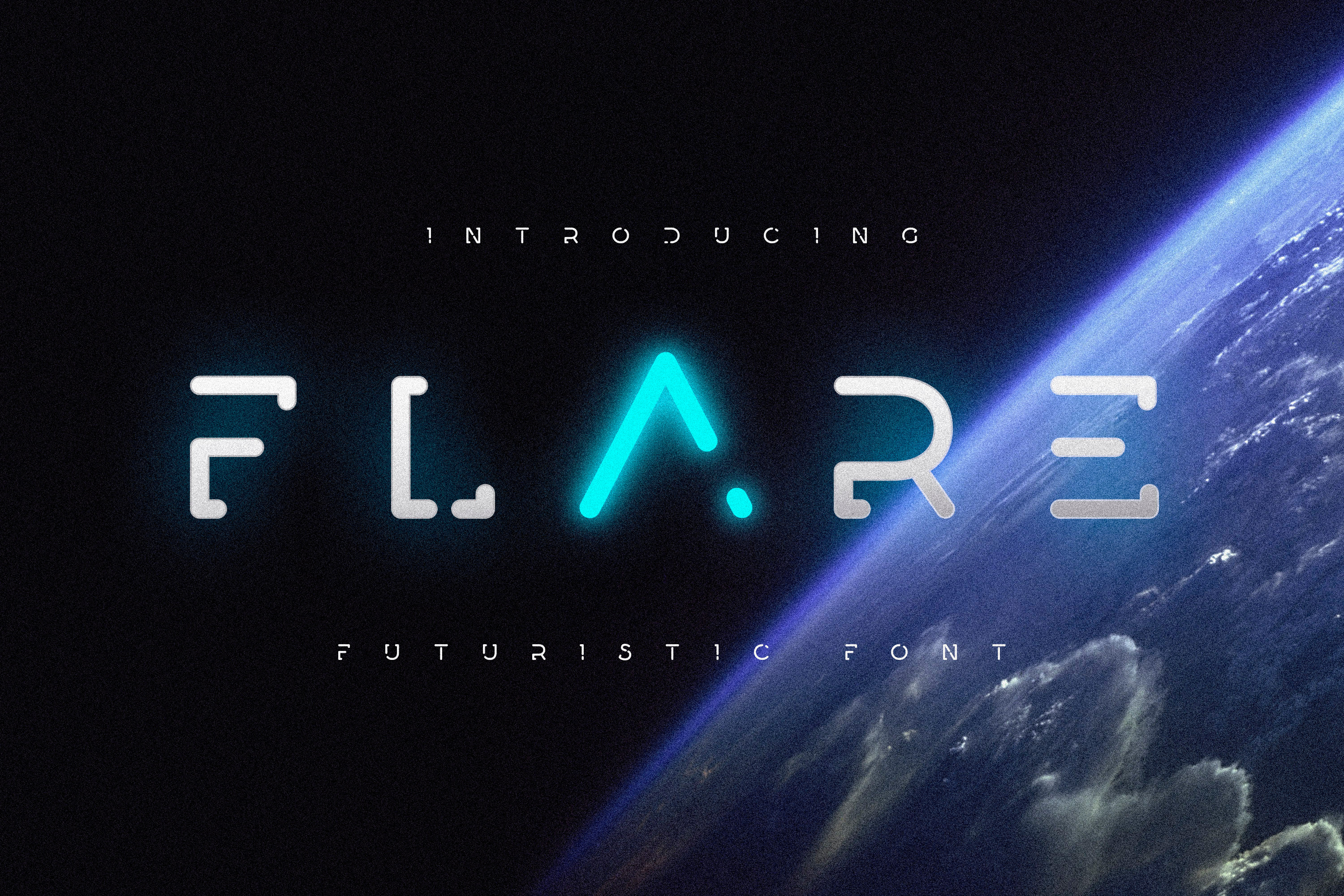
Flare - Futuristic Science Font
Introducing Flare - a futuristic science fiction font.
Flare's design is rooted in the principles of minimalism and clarity, offering an uncluttered look that reads well in both digital and print formats. Its geometrically precise characters exhibit a harmonious balance between form and function, ensuring that it stands out while maintaining excellent legibility.
Perfect for technology, sci-fi, science, and all kinds of futuristic projects. Create science fiction posters & flyers, website headers, high-tech logos and so much more!